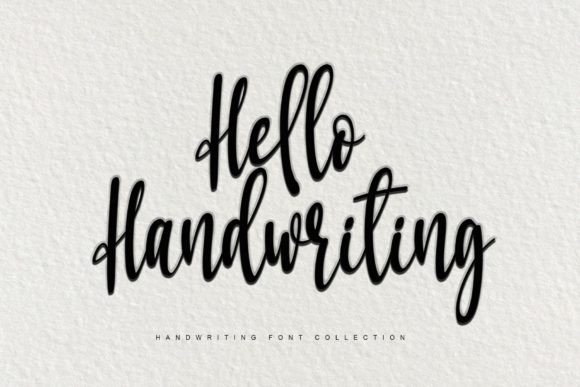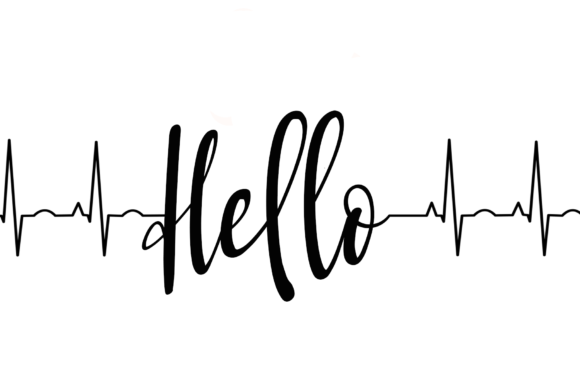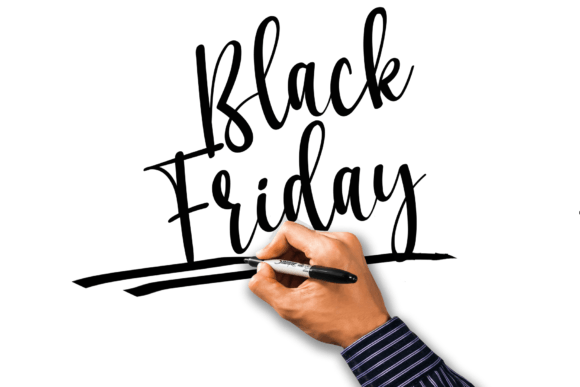
Hello Handwriting Font
About the Hello Handwriting Font
Discover the charm of Hello Handwriting Font. This font is a perfect blend of modern aesthetics and classic appeal. Hello Handwriting is a stylish handwritten font with a contemporary atmosphere and impeccable form, inspired by timeless classic calligraphy. Balanced and varied, this font was designed to enhance the beauty of your projects.
Hello Handwriting excels in short text applications such as logos, headlines, and invitations where its elegant, yet friendly personality shines. It’s ideal for branding projects aiming for a sophisticated, approachable feel, or packaging that requires a touch of handwritten charm. Avoid using it for body text or lengthy paragraphs; its calligraphic nature isn’t optimized for readability in extended formats. UI applications are also unsuitable due to potential legibility issues.
Pairing it with a clean sans-serif like Lato or Open Sans provides a strong contrast, balancing the handwritten informality with modern clarity. For a more traditional feel, consider a serif like Garamond or Playfair Display. A geometric sans-serif such as Montserrat can also create a striking visual hierarchy when used alongside Hello Handwriting.
The font’s overall personality is best described as sophisticated yet approachable; elegant but not overly formal. Its balanced forms prevent it from appearing overly whimsical, while retaining a distinct handwritten warmth.
Hello Handwriting Font Usage Examples
Hello Handwriting Font Example